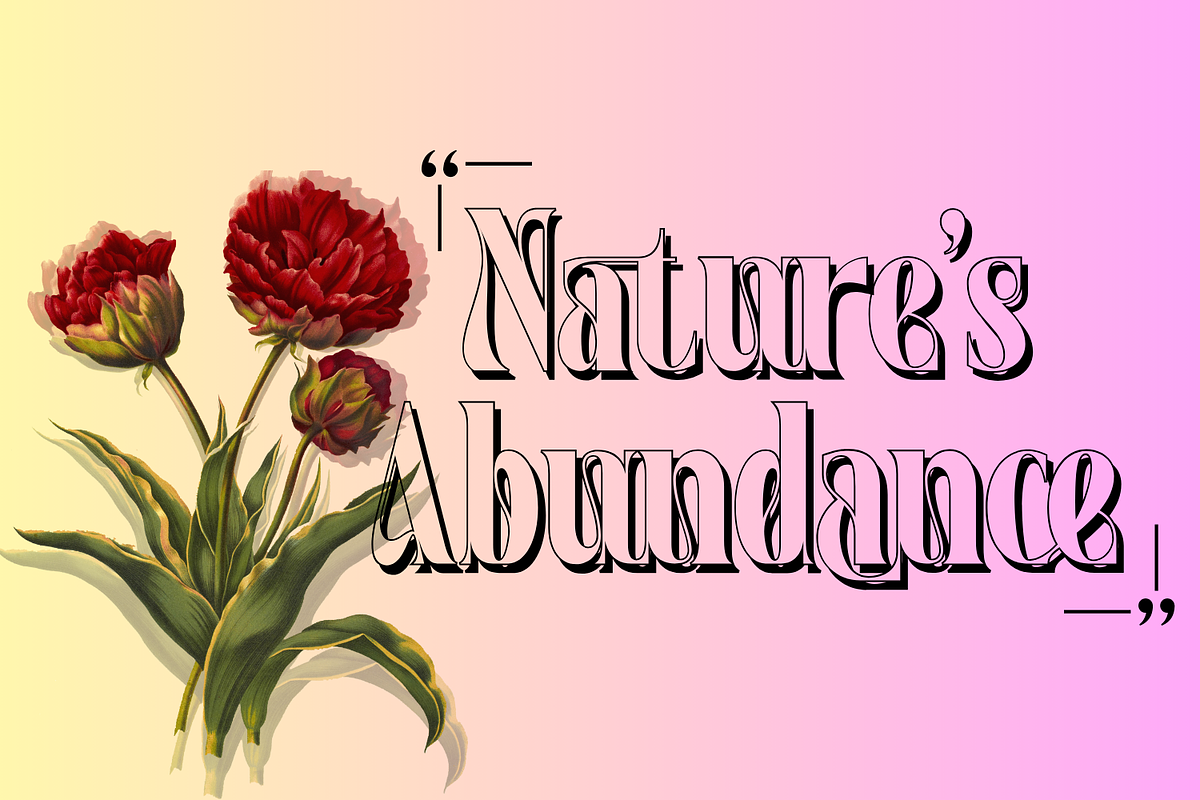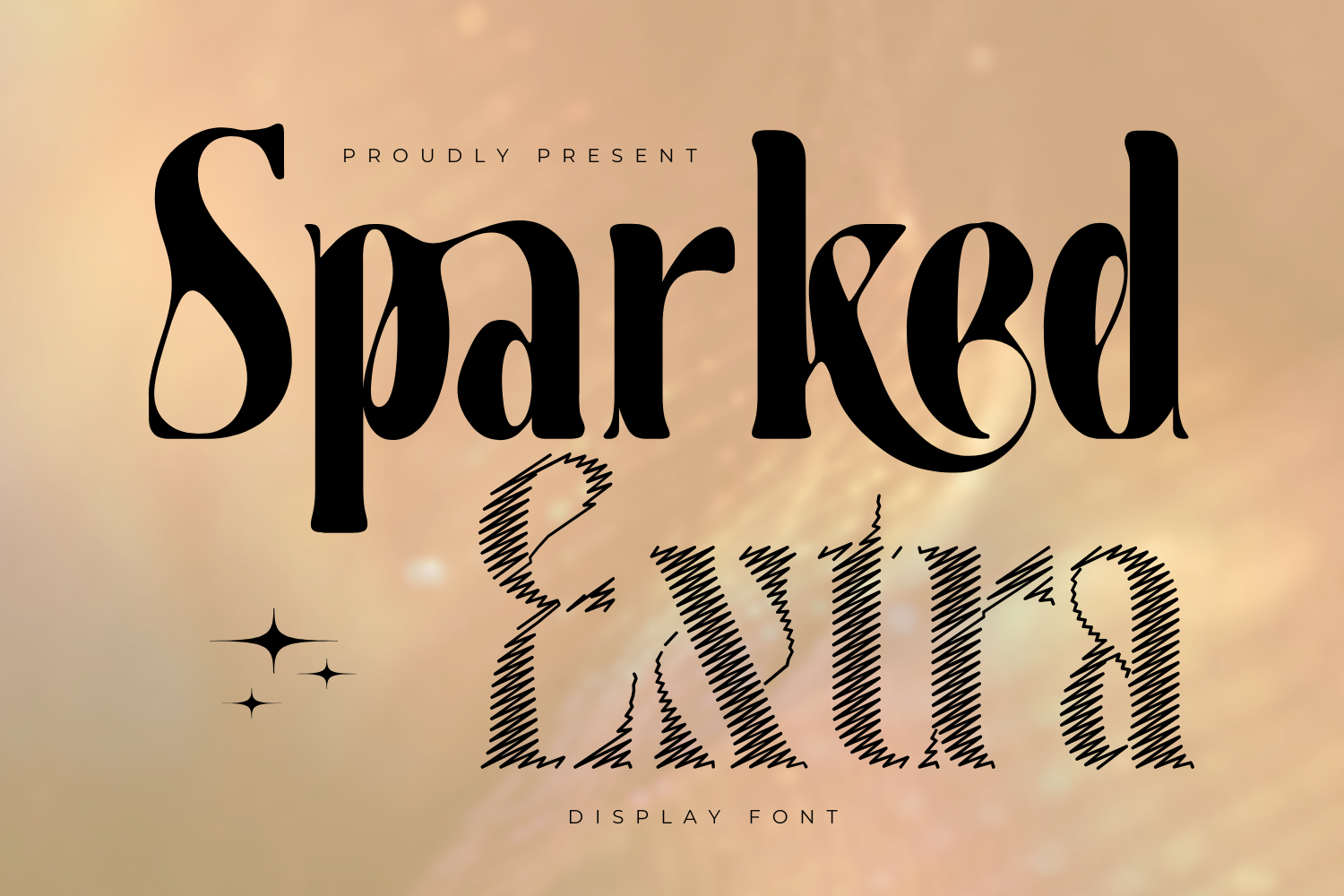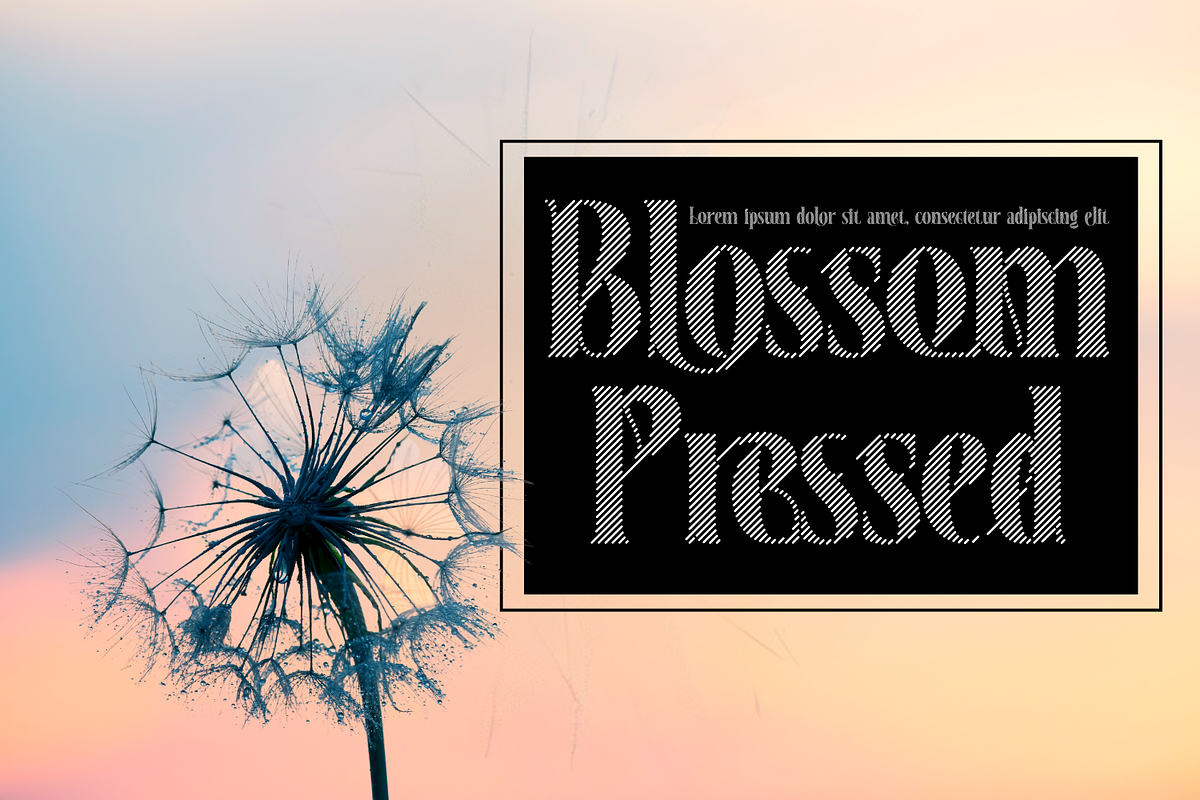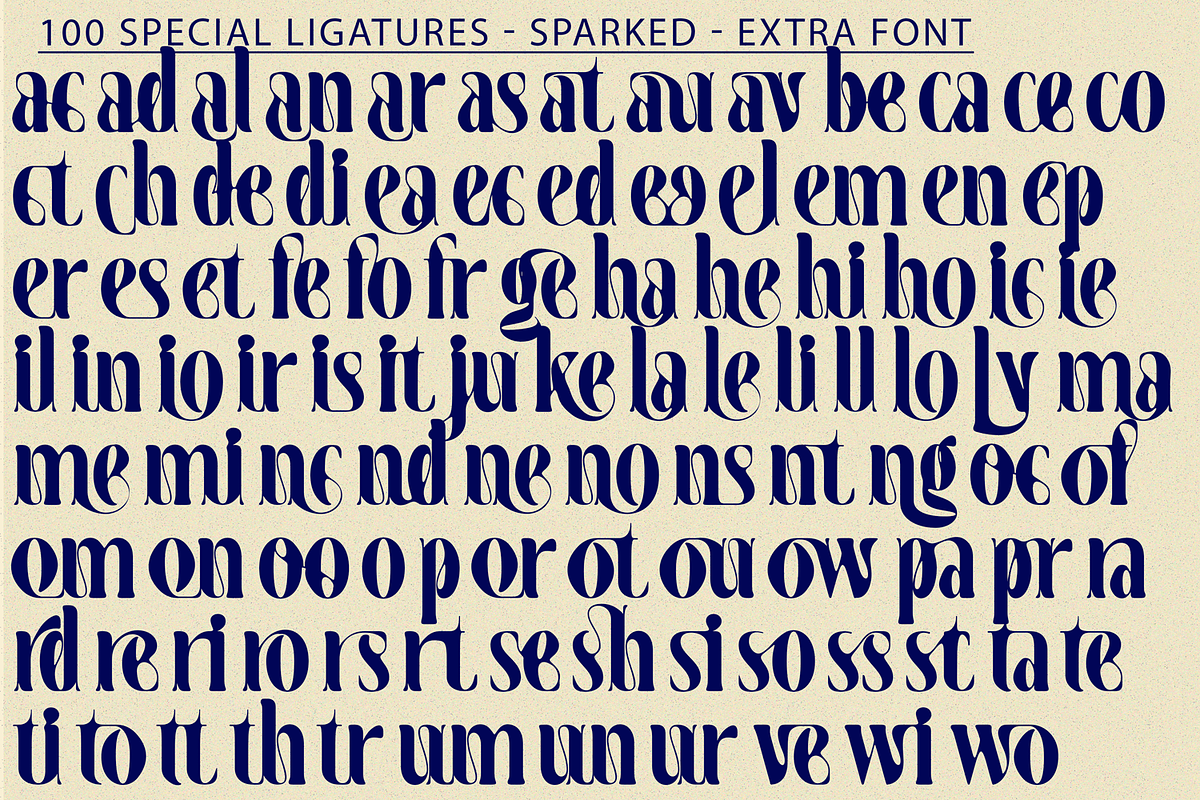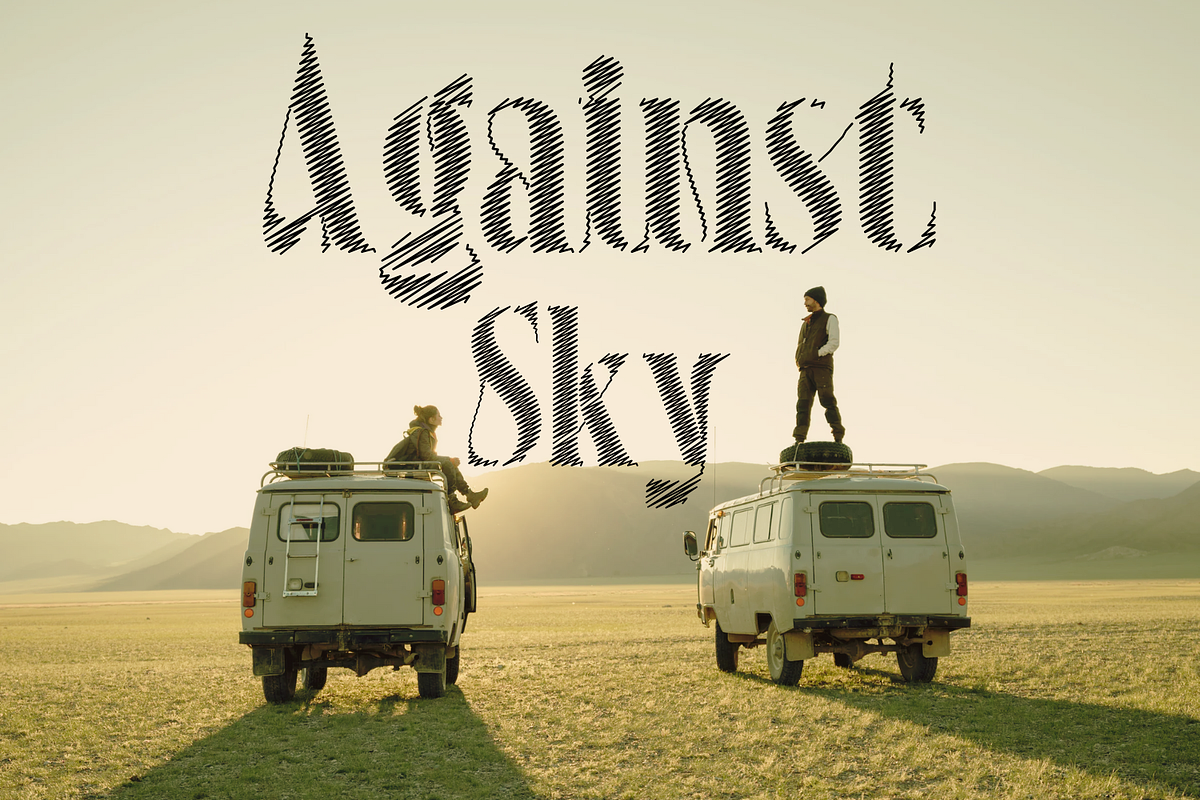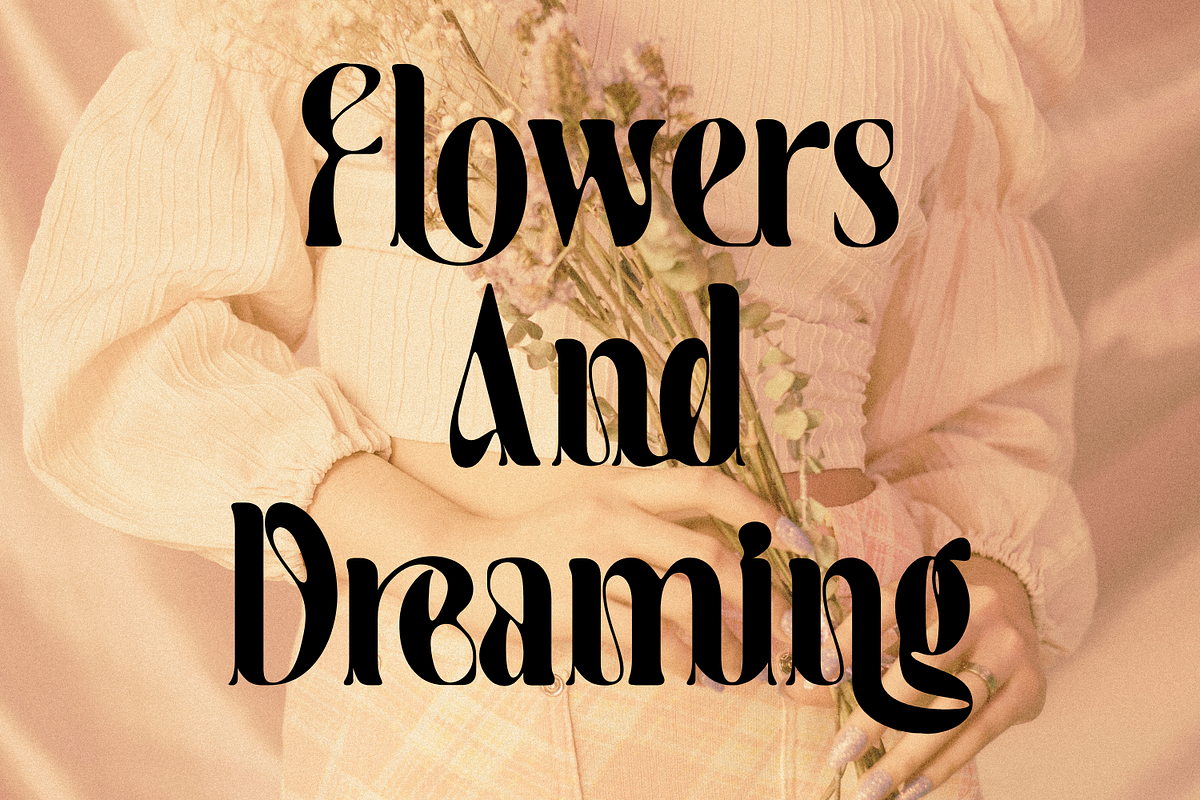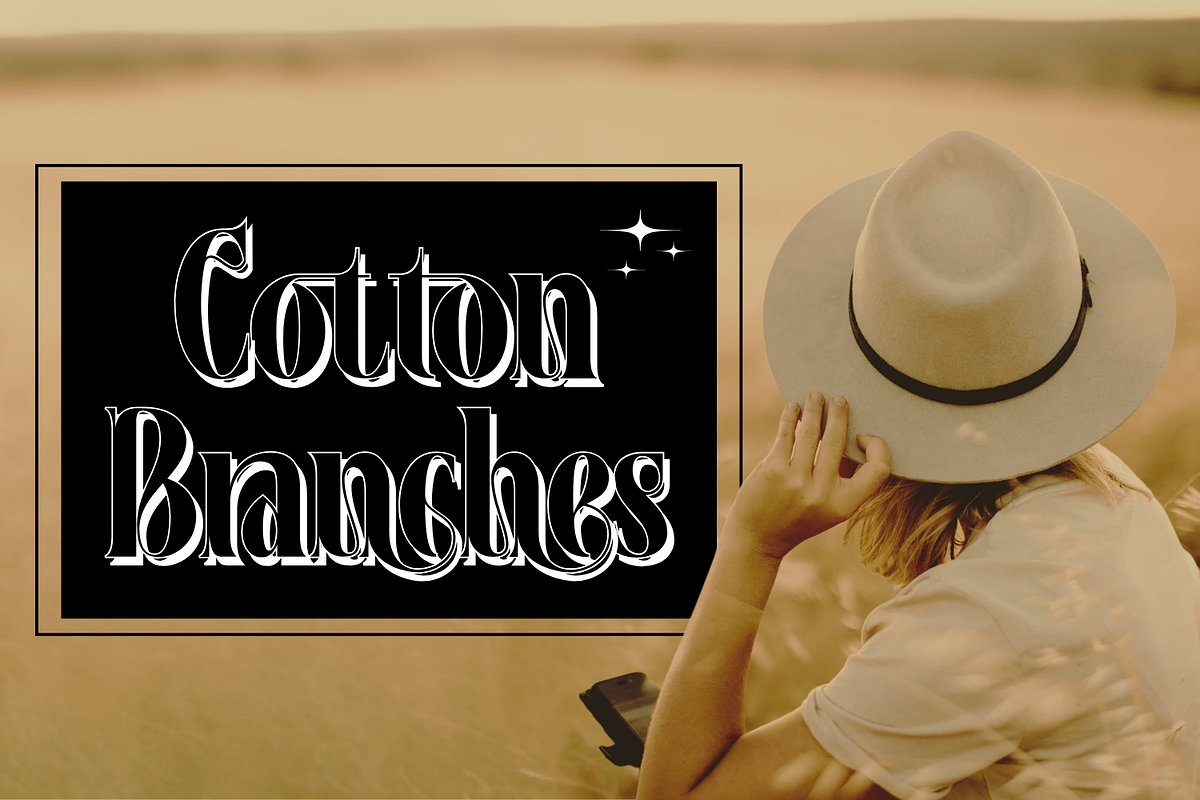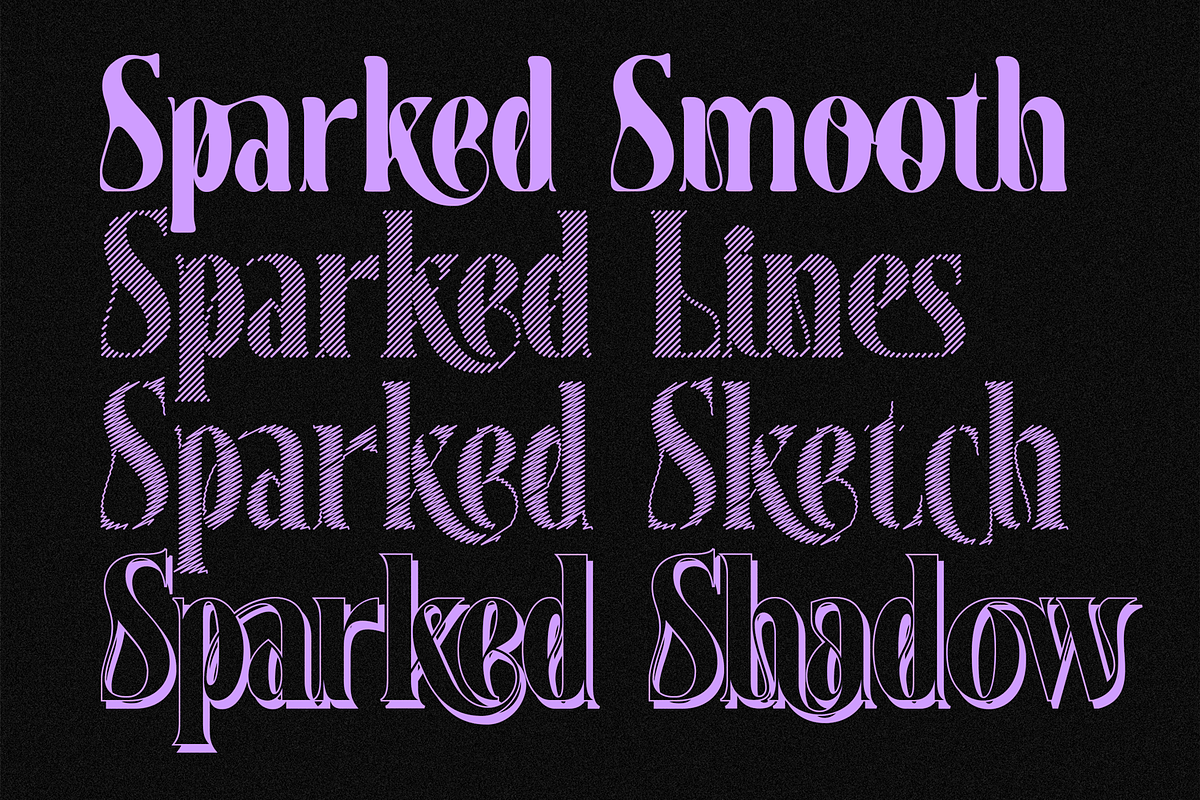
Sparked Extra - Ligature Serif Font
Sparked Extra - Ligature Serif Font is a sophisticated serif font that embodies elegance and modernity, making it a perfect choice for display designs. With its refined letterforms and stylish aesthetic, this font is ideal for branding, editorial designs, invitations, and high-end packaging.
Sparked Extra includes both uppercase and lowercase letters, along with approximately 100 special ligatures that add a unique and artistic touch to your typography. It also features numerals, punctuation, and accented characters, ensuring versatility for multilingual designs.
To enhance creative possibilities, Sparked Extra comes with expanded styles, including Lines, Shadow, Sketch, and Smooth, allowing you to add depth and character to your projects. Whether you're crafting luxury branding or eye-catching headlines, Sparked Extra delivers a timeless and modern appeal.
Sparked Extra was built with OpenType features and includes 100 ligatures, alternate, numbers, punctuation, and it also supports other languages.
ac ad al an ar as at au av be ca ce ch co ct de di ea ec ed ee el em en ep er es et fe fo fr ge ha he hi ho ie ic il in io ir is it ju ke la le li ll lo ly ma me mi nc nd ne ng no nt ns oc of om on oo op or ot ou ow pa pr ra rd re ri ro rs rt se sh si so ss st ta te th ti to tr tt um un ur ve wi wo